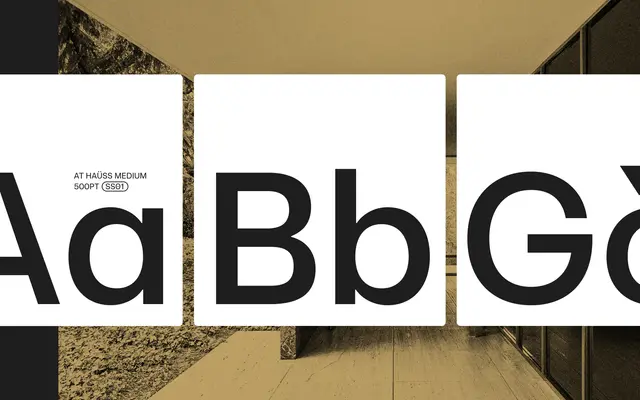
At Haüss
Arillatype · Pedro Arilla · 2022
At Haüss specimen from Arillatype
A neo-grotesque sans by Pedro Arilla spanning ten weights from Air to Super, designed with mid-century references redrawn for screen legibility and modern typographic needs.
Released in May 2022, the family runs twenty styles across a weight range from the hairline Air to the heavy Super, each with a matching italic, and is also available as a variable font with weight and italic axes. A dedicated Retina cut addresses high-density screen rendering, and the family ships with an extensive OpenType feature set including old-style figures, circled numerals, Roman numerals and a single-storey a alternate. At Haüss is part of a wider collection alongside At Haüss Arabic and At Haüss Mono, with 608 glyphs per style covering 100+ languages in Latin Extended.
Explicitly positioned as a contemporary take on mid-20th-century neo-grotesque typefaces, drawing on the Helvetica and Univers tradition while adapting proportions and details for screen performance.